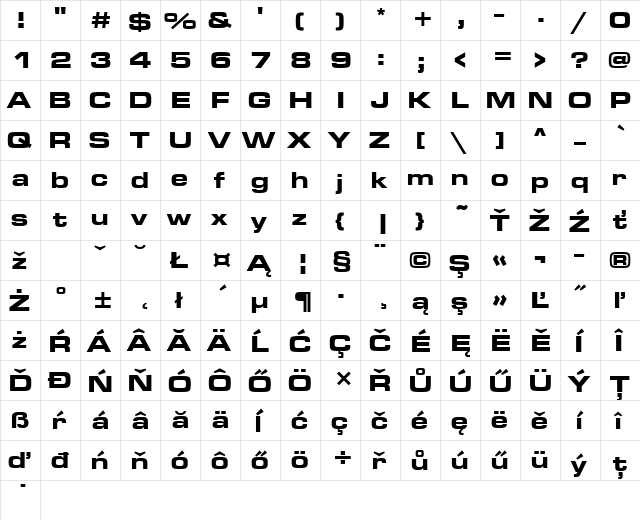
Ultra Vertex 25 Regular
Design Context for Ultra Vertex 25 Typeface
Ultra Vertex 25 offers clean, dependable letterforms without strong stylistic allegiance, making it a practical choice for designers who need flexibility.
Pro Tip: Use Ultra Vertex 25 in both headline and body roles to test its range before committing to a single application.